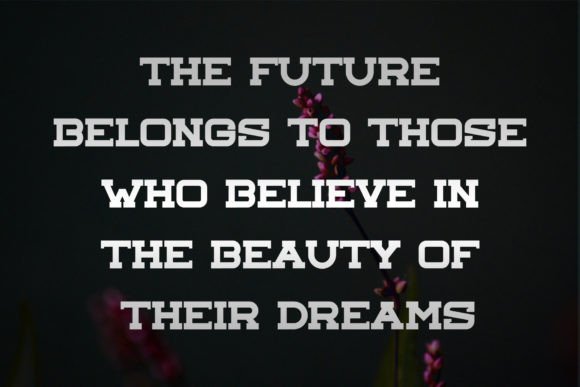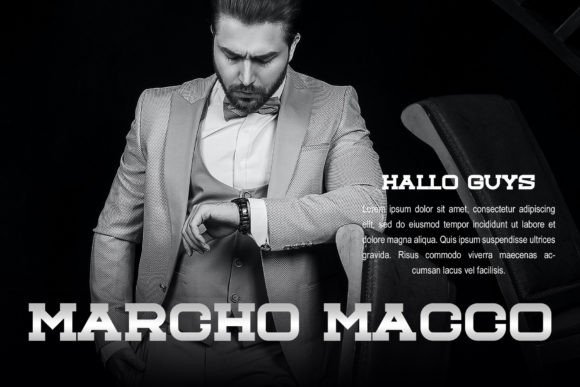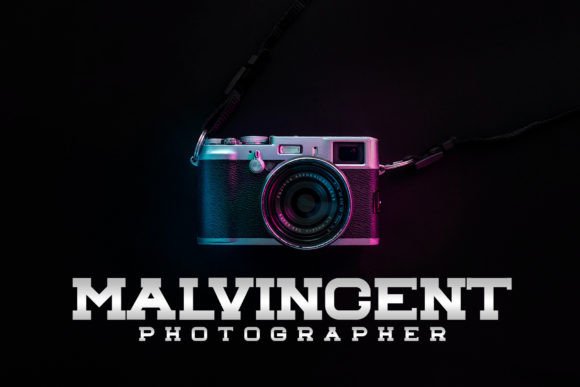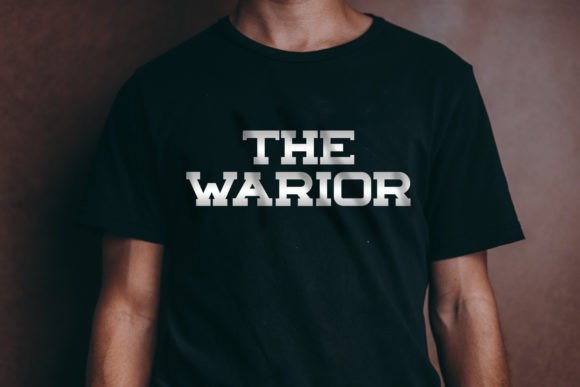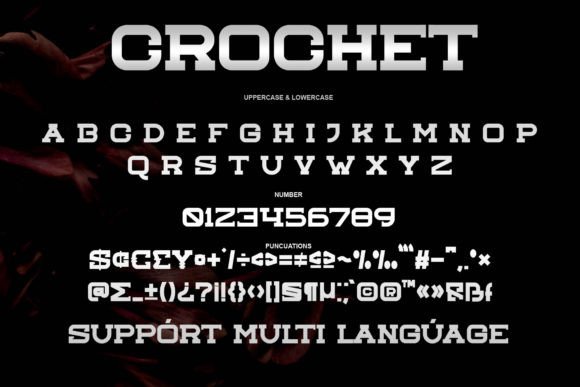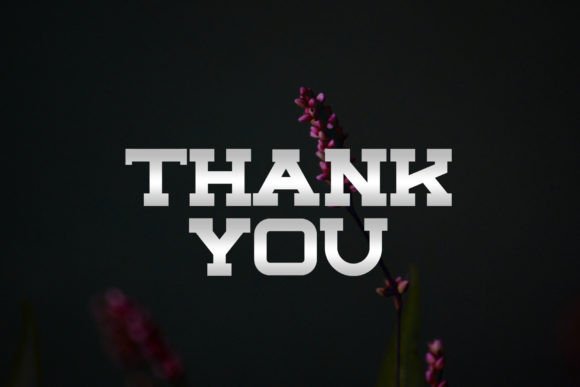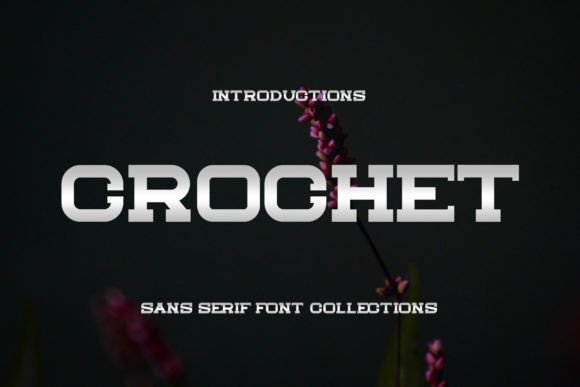
Crochet Font: Elevate Your Designs with a Stylish and Modern Display Font
Crochet Font is a versatile and trendy display font that can add a touch of elegance and sophistication to a wide range of design projects. Whether you’re a designer, crafter, or DIY enthusiast, this font is perfect for creating visually appealing and engaging content. In this article, we’ll explore the features and benefits of Crochet Font, and provide you with tips and inspiration on how to use it in your designs.
What is Crochet Font?
Crochet Font is a stylish and modern display font that is suitable for a wide spectrum of applications. From greeting cards to headlines, branding, and packaging, this font is designed to add a trendy accent to each of your creations. Its unique and elegant design makes it perfect for designers and crafters who want to add a personal touch to their work.
Key Features of Crochet Font
- Stylish and Modern Design: Crochet Font features a sleek and contemporary design that is sure to grab attention.
- Versatile: This font is suitable for a wide range of applications, from digital designs to print materials.
- Elegant and Sophisticated: Crochet Font adds a touch of elegance and sophistication to any design project.
- Easy to Read: Despite its stylish design, Crochet Font is easy to read and understand, making it perfect for headlines and titles.
Benefits of Using Crochet Font
Using Crochet Font in your designs can have numerous benefits. Here are a few:
- Stand Out from the Crowd: With Crochet Font, you can create unique and eye-catching designs that stand out from the crowd.
- Professional Look and Feel: This font gives your designs a professional look and feel, making it perfect for branding and marketing materials.
- Easy to Use: Crochet Font is easy to use and can be easily integrated into your design workflow.
- Time-Saving: With Crochet Font, you can create stunning designs in no time, saving you time and effort.
How to Use Crochet Font in Your Designs
Crochet Font is a versatile font that can be used in a variety of design projects. Here are a few ideas to get you started:
- Greeting Cards: Add a personal touch to your greeting cards with Crochet Font.
- Headlines and Titles: Use Crochet Font to create eye-catching headlines and titles for your blog posts, articles, and social media content.
- Branding and Packaging: Use Crochet Font to create a consistent brand identity and add a touch of elegance to your packaging designs.
- DIY Projects: Add a personal touch to your DIY projects, such as crafts, scrapbooking, and journaling, with Crochet Font.
Tips and Tricks for Using Crochet Font
Here are a few tips and tricks to help you get the most out of Crochet Font:
- Experiment with Different Sizes and Colors: Play around with different sizes and colors to find the perfect combination for your design.
- Use it with Other Fonts: Combine Crochet Font with other fonts to create a unique and visually appealing design.
- Pay Attention to Kerning and Spacing: Make sure to adjust the kerning and spacing to ensure that your text is easy to read and visually appealing.
Crochet Font is a stylish and modern display font that is perfect for designers, crafters, and DIY enthusiasts. With its elegant and sophisticated design, it’s suitable for a wide range of applications, from greeting cards to headlines, branding, and packaging. By following the tips and tricks outlined in this article, you can create stunning designs that showcase your creativity and style.